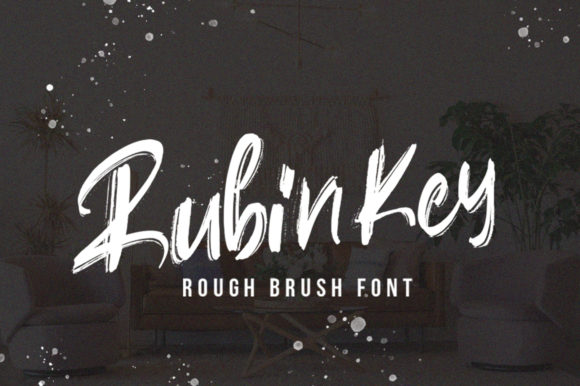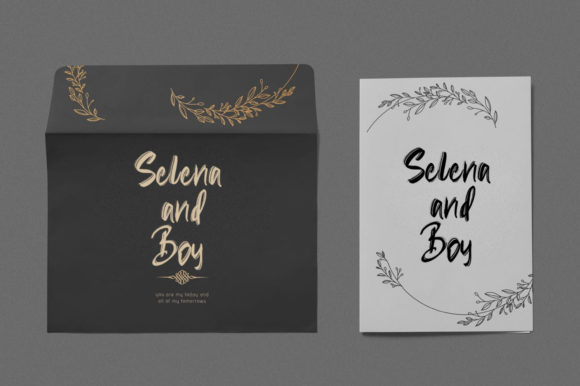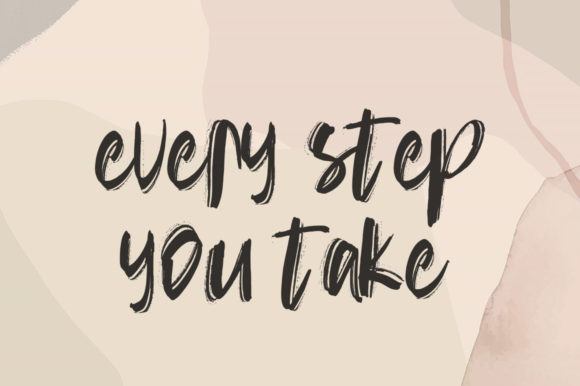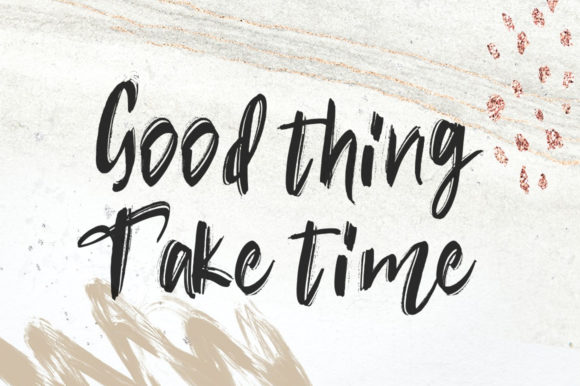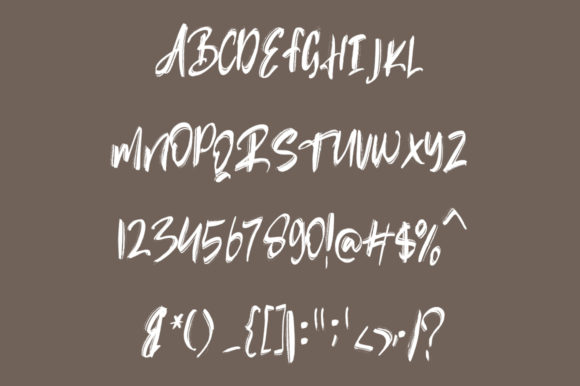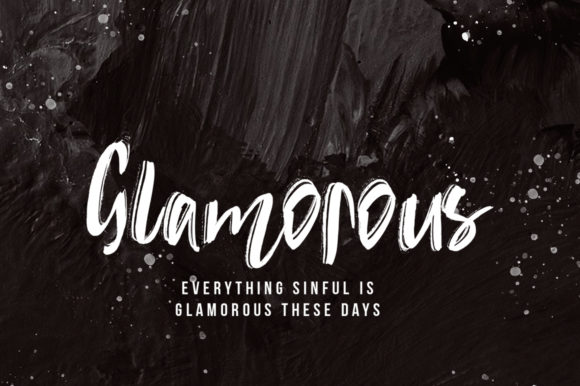
Rubin Key Font
About Rubin Key Font
Rubin Key is a beautiful handwritten font, created with the help of a unique brush pen. Fall in love with its incredibly versatile style and use it to create spectacular designs!